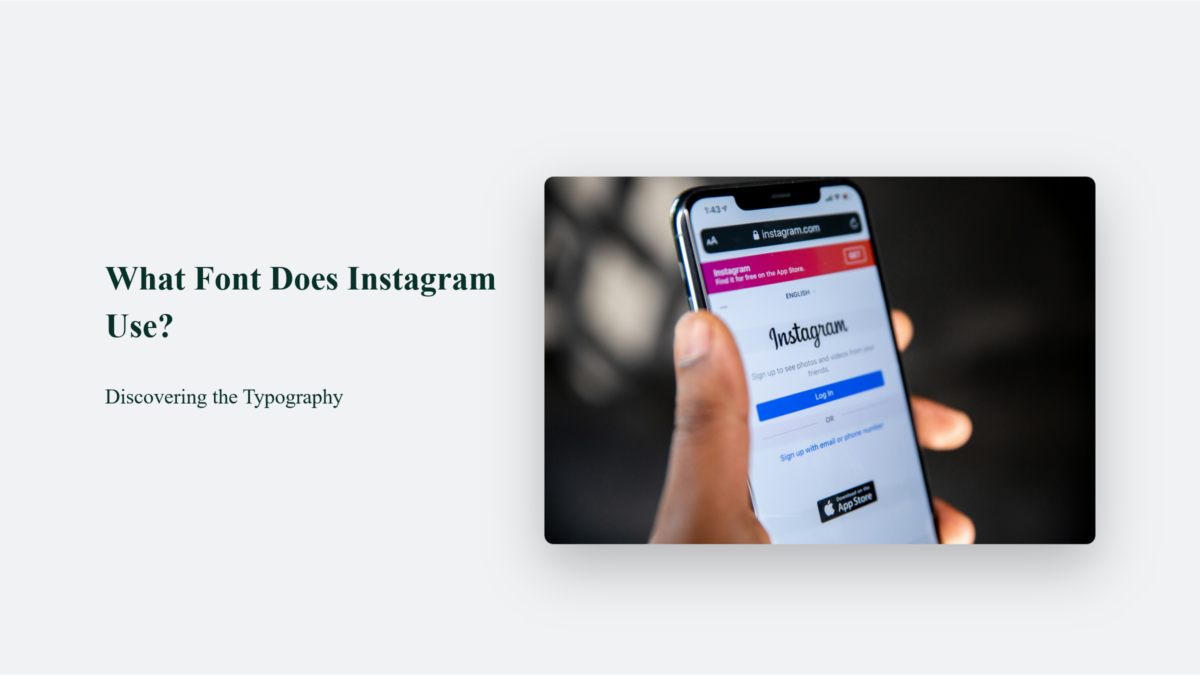
What Kind Of Font Does Instagram Use . When it comes to the main font used by instagram, look no further than instagram sans. Good fonts for instagram stories are: Instagram sans is a contemporary remix of grotesque fonts and geometric styles inspired by instagram's original word mark. The font was designed to be easily readable. The glyph and wordmark inspired this custom style that nods to our heritage. This versatile font comes in multiple. Known for its rounded simplicity, it has grown into one of the most popular modern sans serif fonts. You don’t want your followers to struggle to read your text. Clear and easy to read: In 2005, type designer mark simonson created the proxima nova font family. Instagram sans is our new, global typeface. Instagram uses proxima nova as the core font across its interface.
The font was designed to be easily readable. The glyph and wordmark inspired this custom style that nods to our heritage. When it comes to the main font used by instagram, look no further than instagram sans. Clear and easy to read: This versatile font comes in multiple. You don’t want your followers to struggle to read your text. Instagram sans is our new, global typeface. Good fonts for instagram stories are: In 2005, type designer mark simonson created the proxima nova font family. Known for its rounded simplicity, it has grown into one of the most popular modern sans serif fonts.
What Kind Of Font Does Instagram Use Instagram uses proxima nova as the core font across its interface. The glyph and wordmark inspired this custom style that nods to our heritage. Instagram sans is a contemporary remix of grotesque fonts and geometric styles inspired by instagram's original word mark. Good fonts for instagram stories are: You don’t want your followers to struggle to read your text. When it comes to the main font used by instagram, look no further than instagram sans. Instagram uses proxima nova as the core font across its interface. The font was designed to be easily readable. Instagram sans is our new, global typeface. Clear and easy to read: This versatile font comes in multiple. Known for its rounded simplicity, it has grown into one of the most popular modern sans serif fonts. In 2005, type designer mark simonson created the proxima nova font family.
What Are Instagram Fonts? A Complete Guide What Kind Of Font Does Instagram Use Instagram sans is a contemporary remix of grotesque fonts and geometric styles inspired by instagram's original word mark. Instagram sans is our new, global typeface. You don’t want your followers to struggle to read your text. Good fonts for instagram stories are: When it comes to the main font used by instagram, look no further than instagram sans. The font. What Kind Of Font Does Instagram Use.
Instagram Fonts Generator (the Easiest for Captions, Bio and Stories) What Kind Of Font Does Instagram Use When it comes to the main font used by instagram, look no further than instagram sans. Known for its rounded simplicity, it has grown into one of the most popular modern sans serif fonts. The font was designed to be easily readable. Instagram uses proxima nova as the core font across its interface. You don’t want your followers to struggle. What Kind Of Font Does Instagram Use.
What Font Are You on Instagram Guide to New Fonts for Stories What Kind Of Font Does Instagram Use This versatile font comes in multiple. Clear and easy to read: When it comes to the main font used by instagram, look no further than instagram sans. In 2005, type designer mark simonson created the proxima nova font family. You don’t want your followers to struggle to read your text. Instagram uses proxima nova as the core font across its. What Kind Of Font Does Instagram Use.
Discover the New Instagram Stories Fonts + How to Use Them What Kind Of Font Does Instagram Use Instagram sans is a contemporary remix of grotesque fonts and geometric styles inspired by instagram's original word mark. The glyph and wordmark inspired this custom style that nods to our heritage. Known for its rounded simplicity, it has grown into one of the most popular modern sans serif fonts. The font was designed to be easily readable. In 2005, type. What Kind Of Font Does Instagram Use.
Instagram Stories Fonts What font does Instagram use for Stories & Reels What Kind Of Font Does Instagram Use Instagram uses proxima nova as the core font across its interface. Known for its rounded simplicity, it has grown into one of the most popular modern sans serif fonts. In 2005, type designer mark simonson created the proxima nova font family. The font was designed to be easily readable. You don’t want your followers to struggle to read your text.. What Kind Of Font Does Instagram Use.
Instagram Fonts Everything You Need To Know Kicksta What Kind Of Font Does Instagram Use Clear and easy to read: Known for its rounded simplicity, it has grown into one of the most popular modern sans serif fonts. Instagram sans is a contemporary remix of grotesque fonts and geometric styles inspired by instagram's original word mark. In 2005, type designer mark simonson created the proxima nova font family. The font was designed to be easily. What Kind Of Font Does Instagram Use.
What Font Does Instagram Use? TechCult What Kind Of Font Does Instagram Use Known for its rounded simplicity, it has grown into one of the most popular modern sans serif fonts. Instagram sans is a contemporary remix of grotesque fonts and geometric styles inspired by instagram's original word mark. The glyph and wordmark inspired this custom style that nods to our heritage. Instagram sans is our new, global typeface. The font was designed. What Kind Of Font Does Instagram Use.
How to Change Fonts on Instagram Everything You Need to Know What Kind Of Font Does Instagram Use In 2005, type designer mark simonson created the proxima nova font family. Known for its rounded simplicity, it has grown into one of the most popular modern sans serif fonts. You don’t want your followers to struggle to read your text. When it comes to the main font used by instagram, look no further than instagram sans. The glyph and. What Kind Of Font Does Instagram Use.